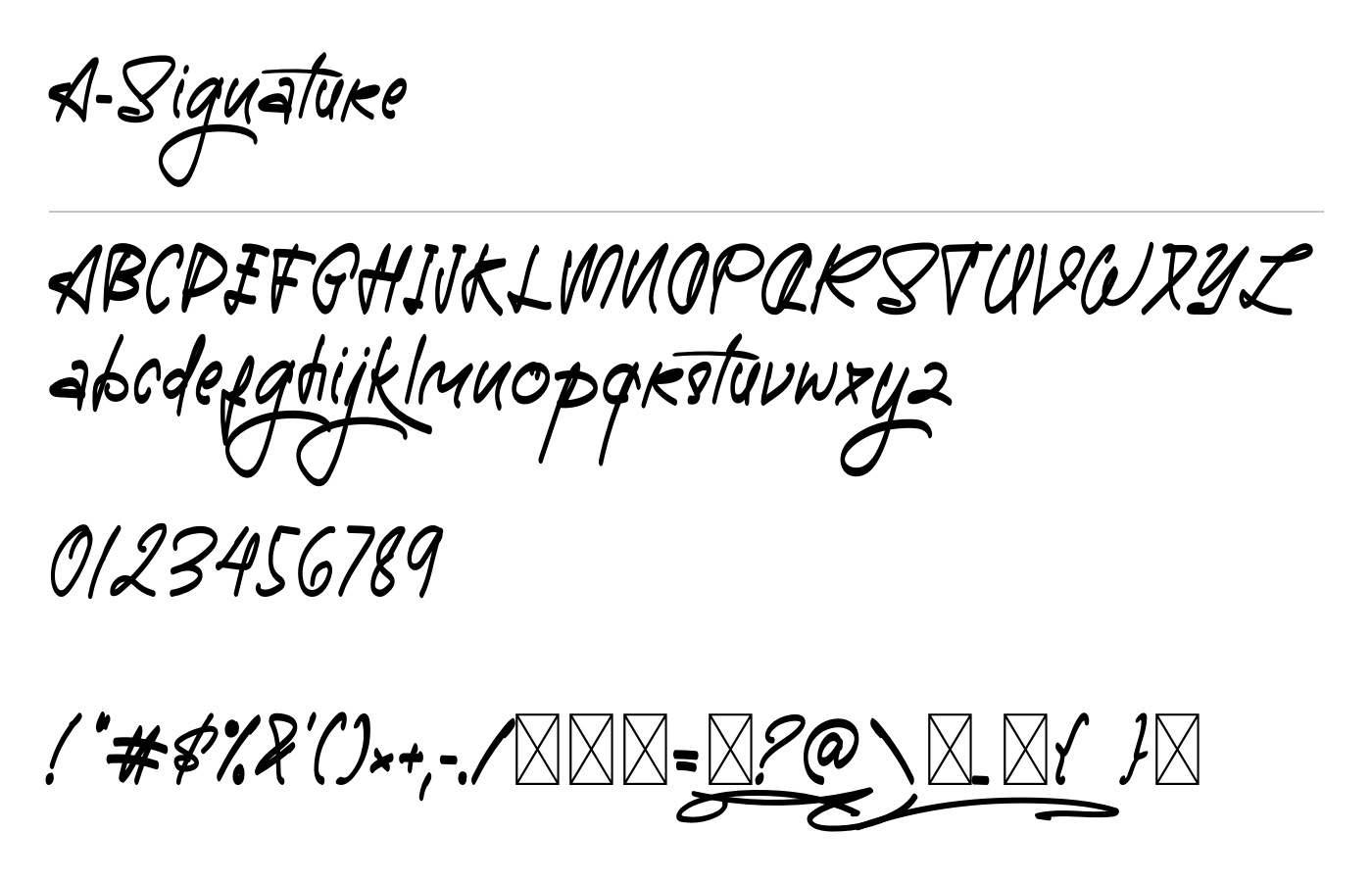
A-Signature Font is a lively and expressive script typeface that mimics natural handwriting with energetic, flowing strokes. Its bold weight and tall, slightly condensed letterforms give it a dynamic and personal feel, ideal for creative branding, logos, and invitations where a casual yet artistic touch is desired. This font works best in headline or display uses, adding a sense of individuality and warmth to designs.
A-Signature Font
About A-Signature Font
| Font family | A-Signature Font |
| Designer | Alghul |